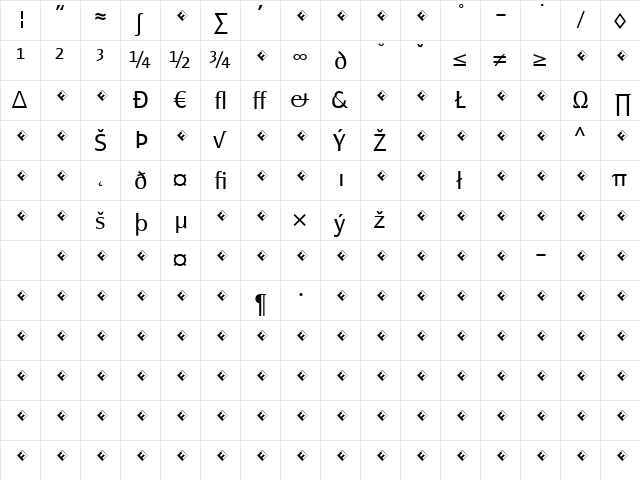
PageSans-LightExpert Regular
| Designer | Albert Boton |
Design Context for PageSans-LightExpert Typeface
PageSans-LightExpert takes a measured approach to typography — its balanced proportions and neutral character make it a reliable workhorse for both digital and print work. The delicate stroke weight brings airiness and refinement to layouts.